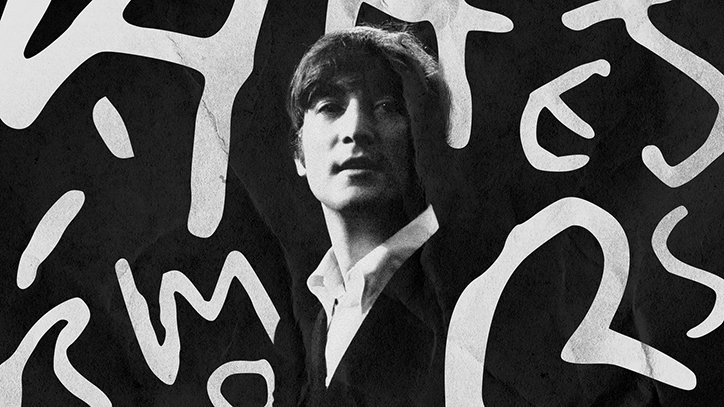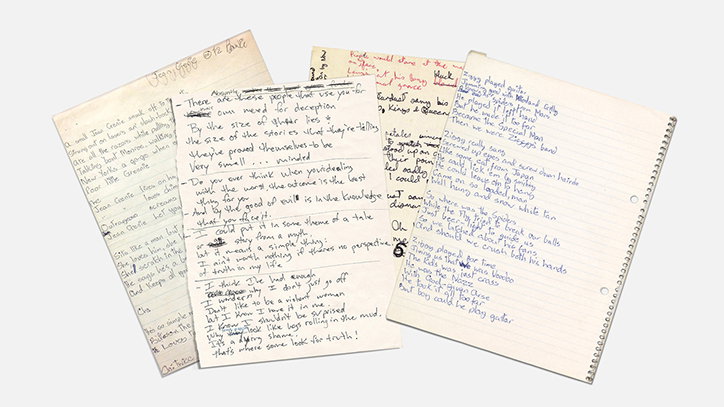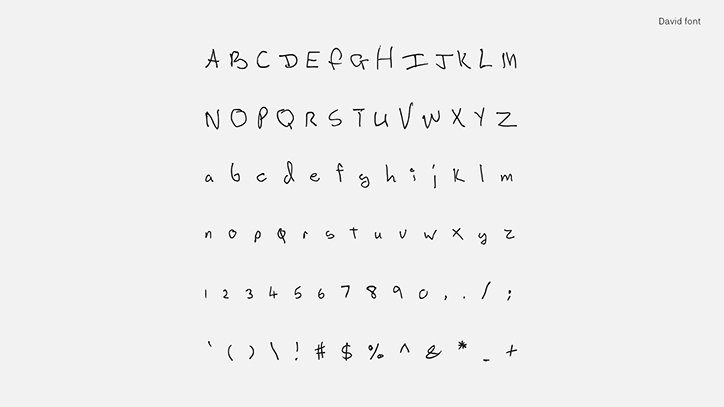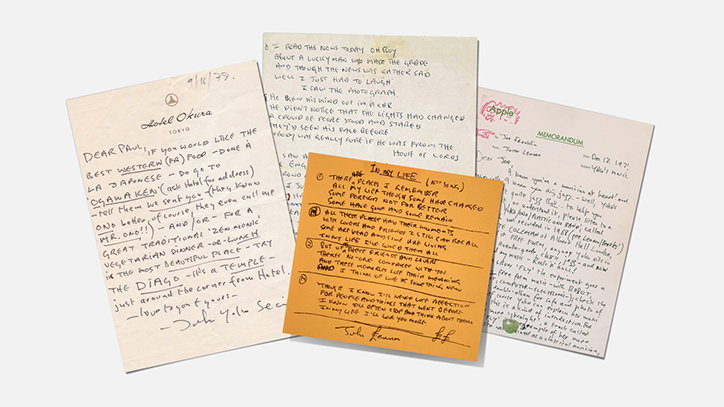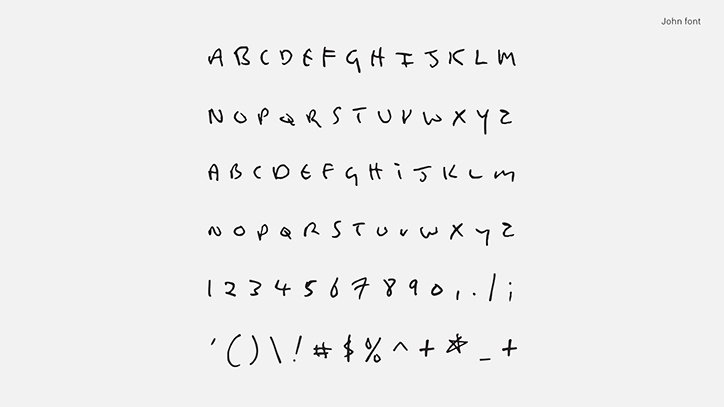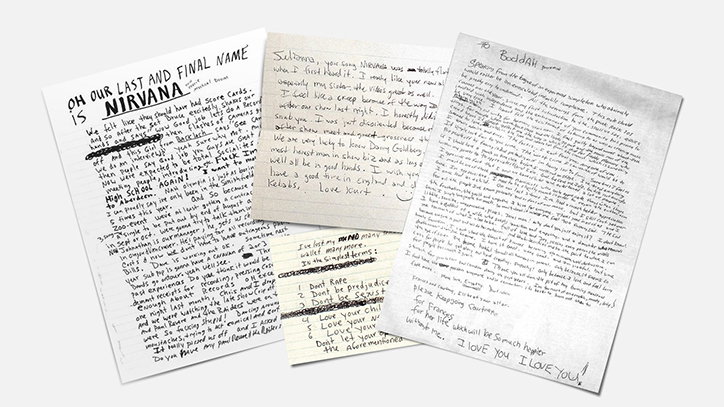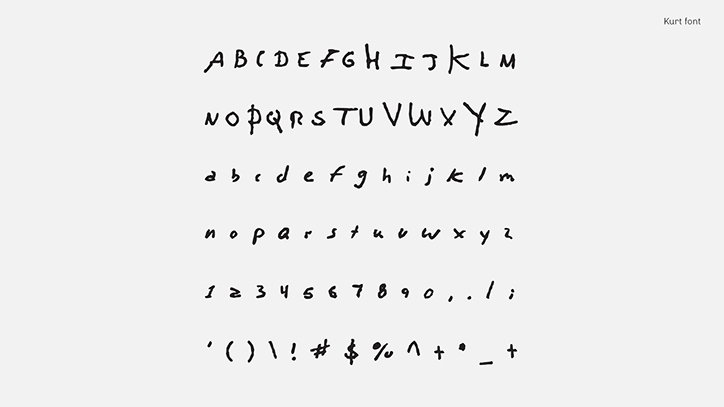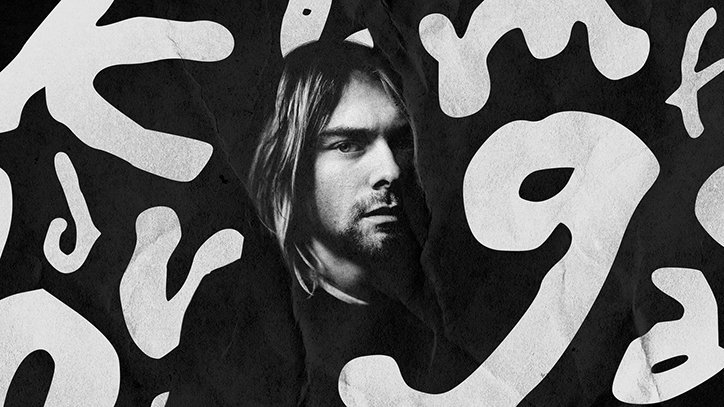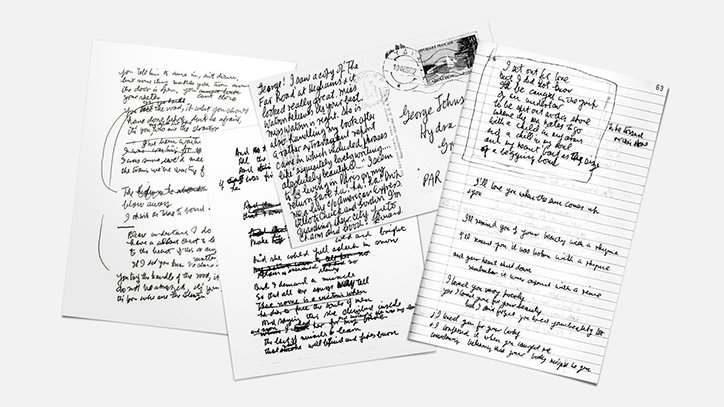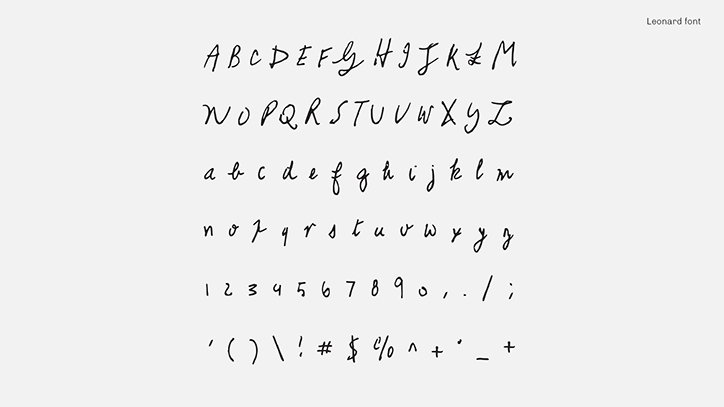
Songwriters Fonts gives you the opportunity to type in the handwriting of David Bowie and John Lennon
Songwriters Fonts, a new project launched by French graphic designer Nicolas Damiens and copywriter Julien Sans, gives typography fans the opportunity to experiment with using the handwriting of some of the world’s most treasured songwriters.
Developing a collection of five alternate famous fonts to choose from, the pair has researched into handwritten letters and notes of Leonard Cohen, David Bowie, John Lennon, Kurt Cobain and Serge Gainsbourg, mimicking their respective handwriting to create a font for each.
Choosing songwriters such as Kurt Cobain whose “unique writing did affect a generation forever,” or David Bowie who “never stopped experimenting new approaches in his music, writing unconventional songs which became classics,” the pair hope that using the typefaces will spur on inspiration. “Writing lyrics with the handwriting of influential songwriters helps imagination to develop,” explains Songwriters Fonts. “Being in the mood of Bowie, Cohen, Gainsbourg, Lennon, might be purely imaginative… but that’s precisely the point.”
Songwriters Fonts: David Bowie
Songwriters Fonts: John Lennon
Songwriters Fonts: Kurt Cobain
Songwriters Fonts: Leonard Cohen
Songwriters Fonts: Serge Gainsbourg